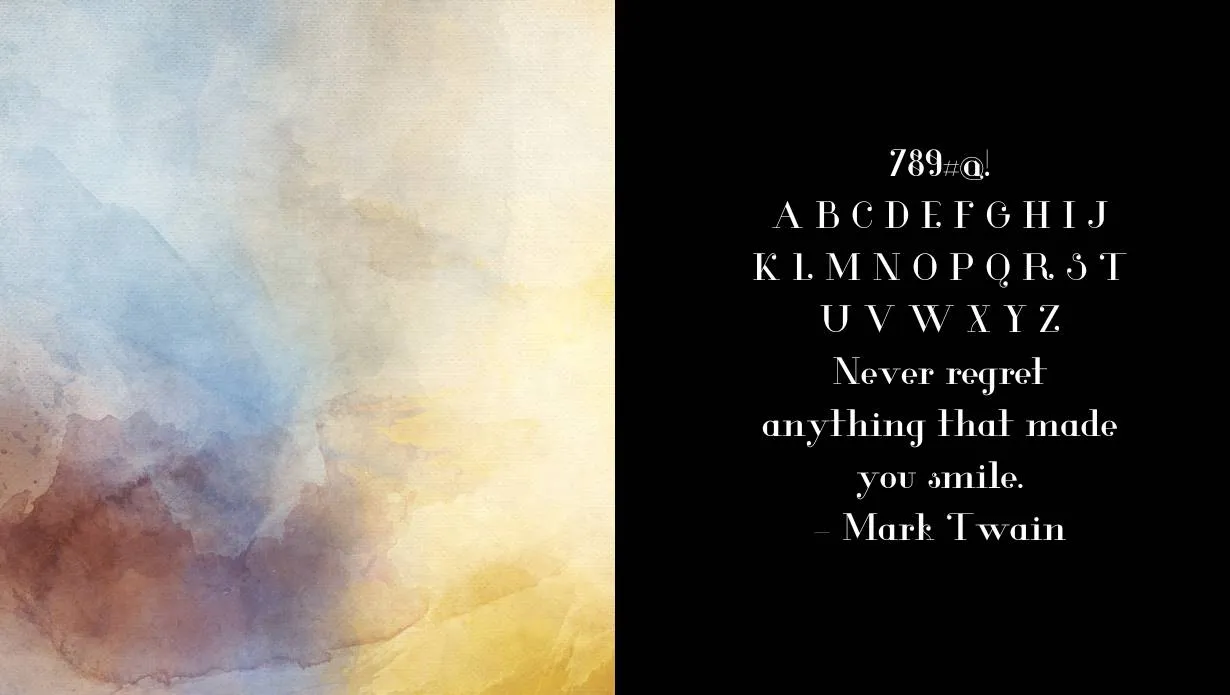
Glamor Font is a very unique and stylish serif font that was designed in the early century. The font was created by Hendrick Rolandez.
The font comes in various weights and styles from regular to bold italic.
Its regular style contains more than 200 glyphs including uppercase, lowercase, punctuations, letters, and special characters. In this font, each weight contains more than 100 glyphs.